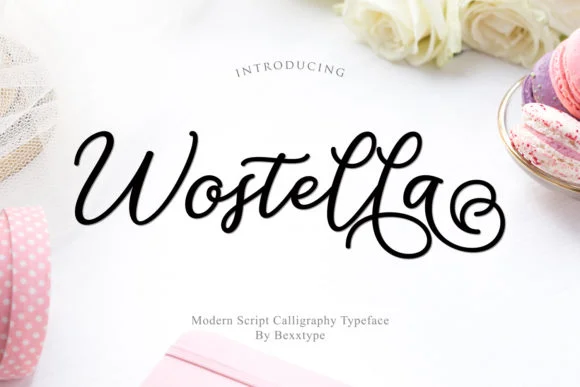
Wostella Script Font
The Wostella Script Font is perfect for wedding invitations, elegant branding, greeting cards, luxury packaging, and feminine social media graphics. Its flowing, handwritten style brings a sophisticated and personal touch, making designs feel warm, stylish, and memorable.
What makes the Wostella Script Font Free Download so exciting is its smooth, graceful letterforms that mimic natural calligraphy. Each character exudes elegance and charm, giving your projects a polished, handcrafted feel that adds personality and beauty.
The Wostella Script Font family includes multiple styles such as Regular, Bold, and Swash variations. These options give designers flexibility to create dynamic, layered typography that enhances visual interest while maintaining a cohesive and elegant aesthetic.